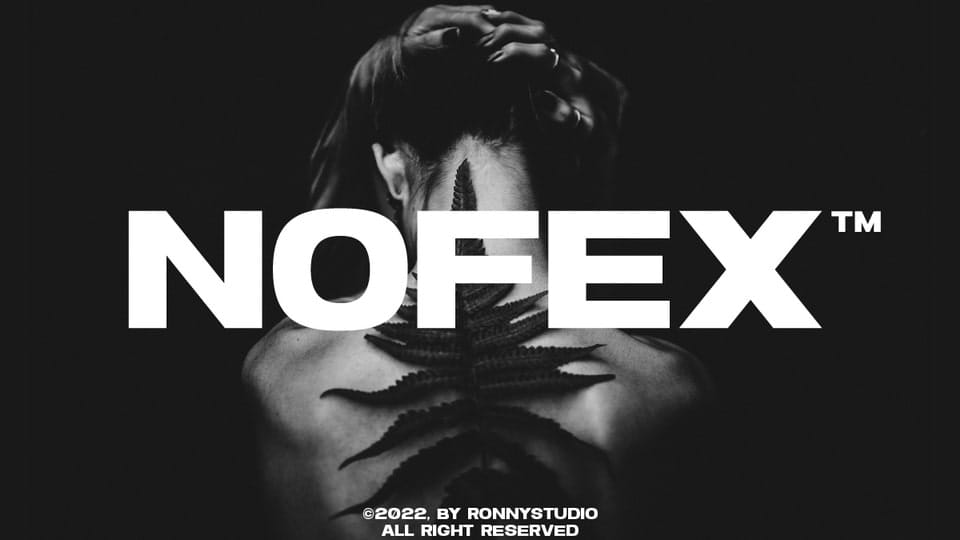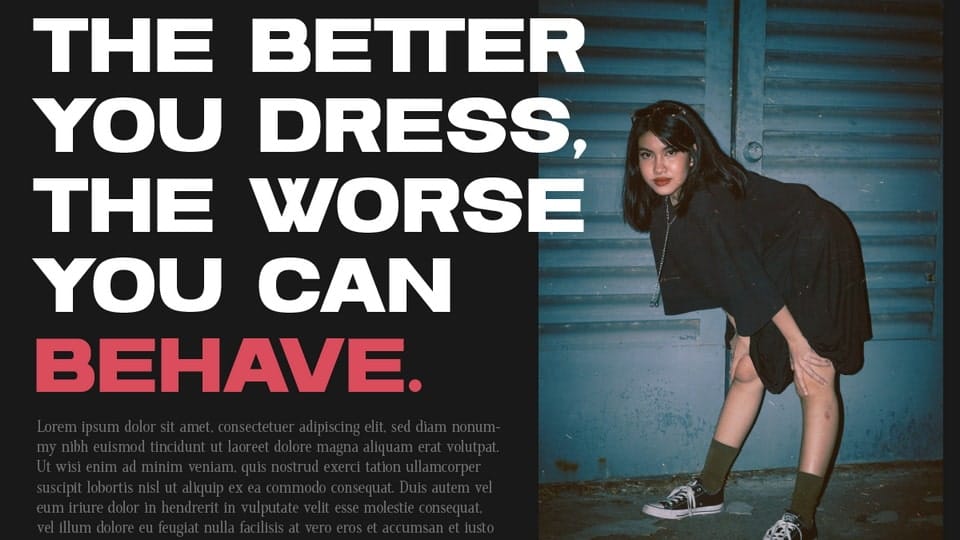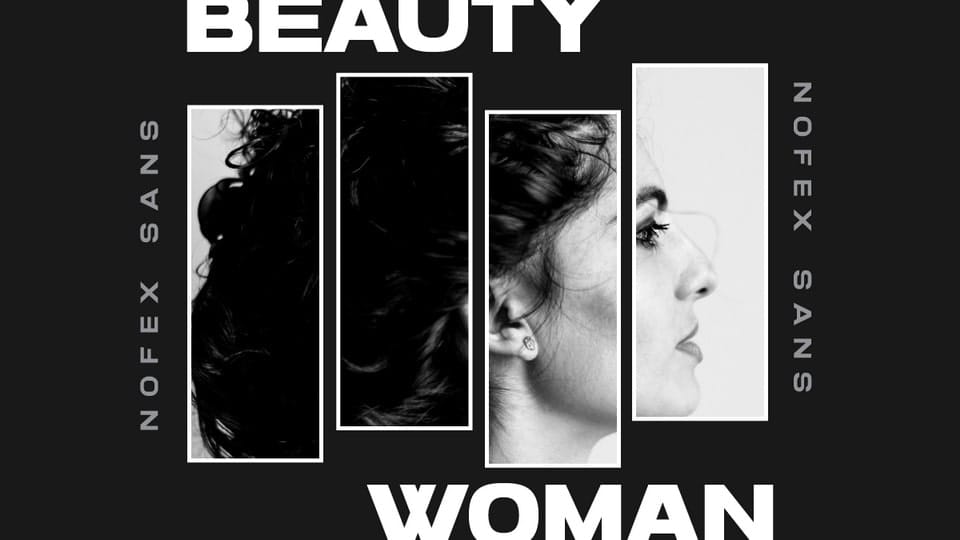
Nofex Font
Nofex is an all-caps font with a bold body and high contrast, giving it a modern look when paired with contrasting design colors. It features a clean and elegant design, making it versatile for various projects that need a unique touch. Add it with confidence to your creations, and you’ll love the results.
Nofex is perfect for elegant logos, branding, promotions, book covers, magazine layouts, or as a stylish text overlay on any background image.